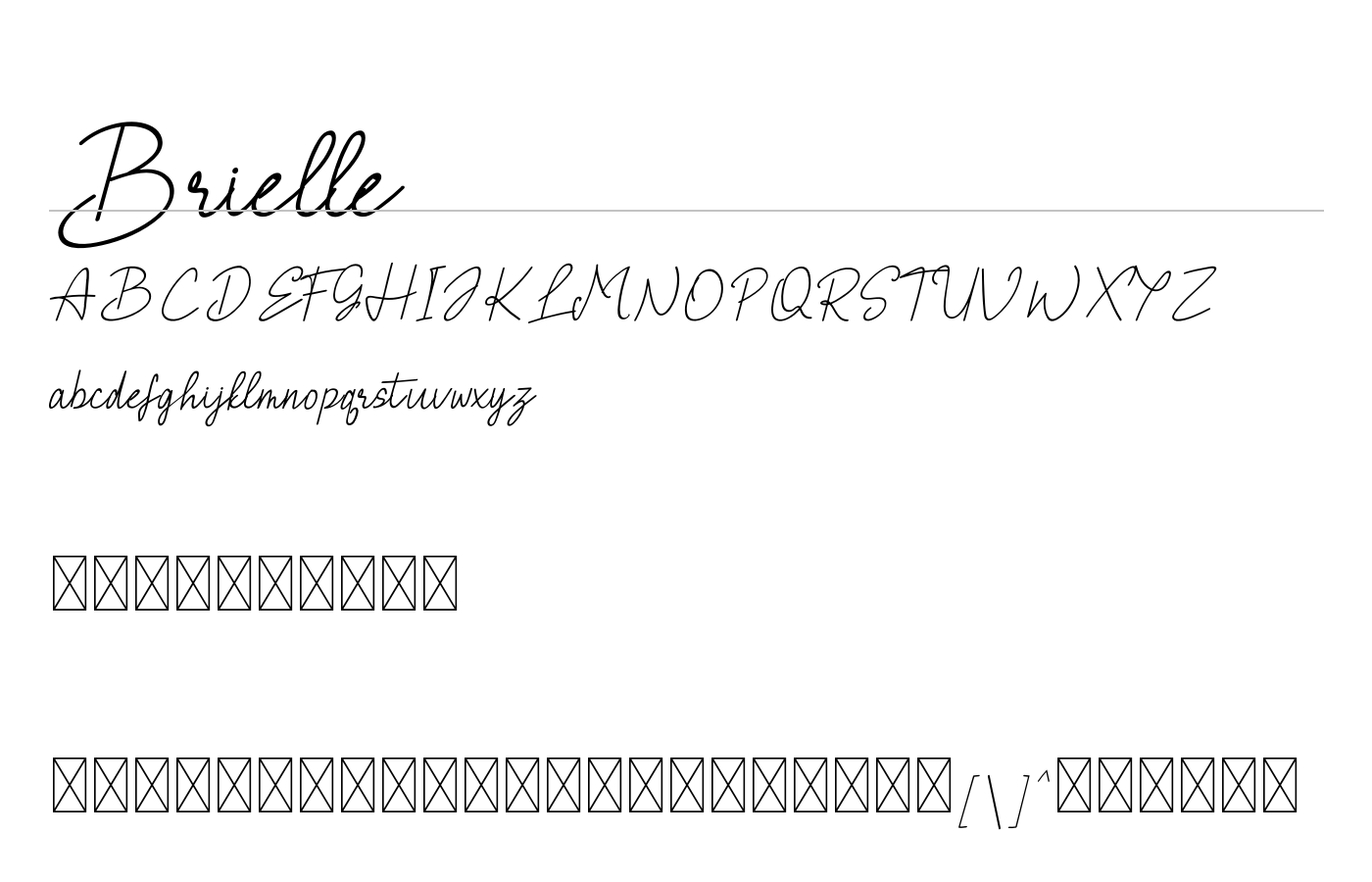
Brielle is a delicate, handwritten script font featuring thin, flowing lines with a natural, casual feel. Its slightly tall x-height and airy spacing create an elegant yet approachable style, perfect for personal branding, invitations, or feminine design projects that seek a touch of sophistication and warmth.
Brielle Font
About Brielle Font
| Font family | Brielle Font |